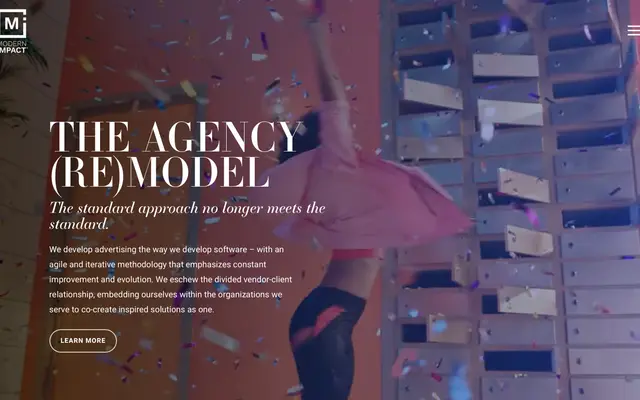
Essonnes
JTD Type · 2011
A sixteen-style Didone system spanning three optical sizes, rooted in the eccentric forms of Pierre Didot's 1819 type and designed to make high-contrast serifs workable from text to headline.
Drawn from the eccentric letterforms of Pierre Didot's 1819 type, Essonnes extends the Didone tradition into a genuinely optical family where Text, Display and Headline cuts are each designed from scratch rather than derived by simple contrast adjustment. Distinctive stylistic sets restore Didot's unconventional lowercase g, s and y treatments, available as alternates rather than defaults. The family runs to sixteen individual styles across its three optical sizes, covering Thin through Bold with matching italics throughout.
Essonnes is a high-contrast serif with vertical stress, hairline serifs and extreme thick-to-thin contrast, placing it firmly in the Didone tradition. The foundry explicitly references Pierre Didot's 1819 type as the primary historical source.